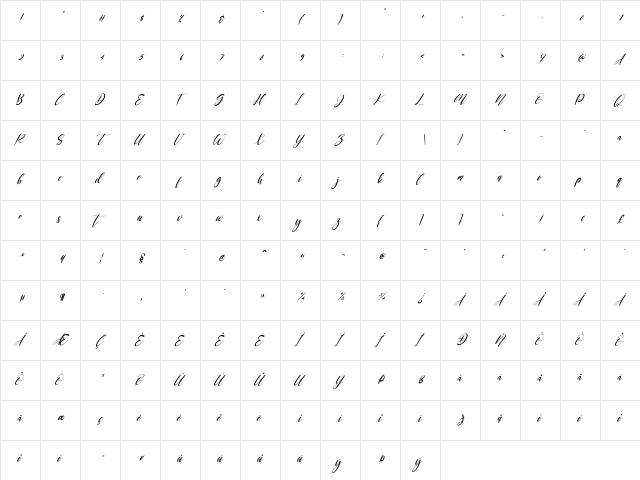
Jeniffer Italic Regular
Design Context for Jeniffer Italic Typeface
Jeniffer Italic is a composed and adaptable typeface that performs quietly and consistently across a wide range of design contexts. Its italic angle brings a sense of urgency and motion to the letterforms.
Pro Tip: Use Jeniffer Italic for emphasis, pull quotes, and subheadings where its slanted energy can add rhythm to the layout.